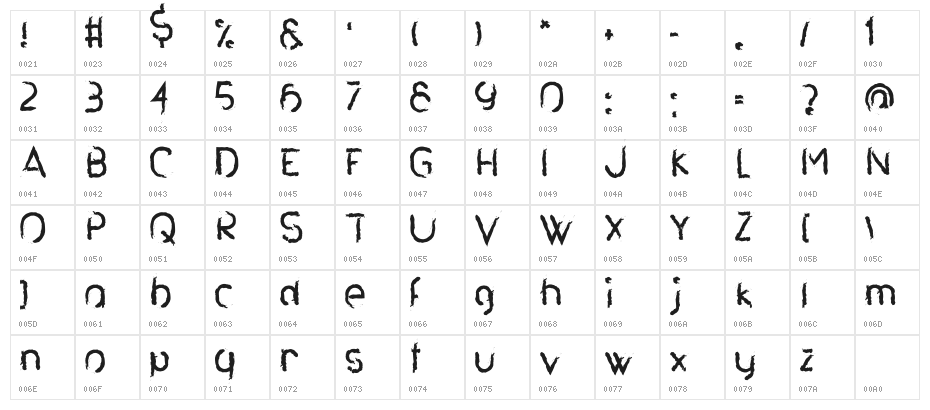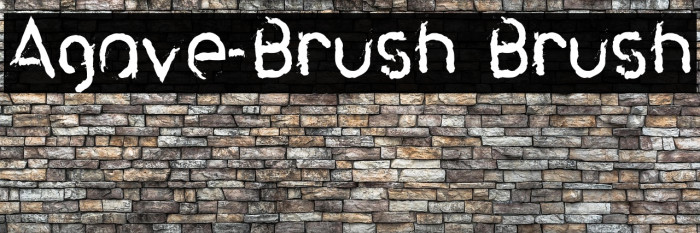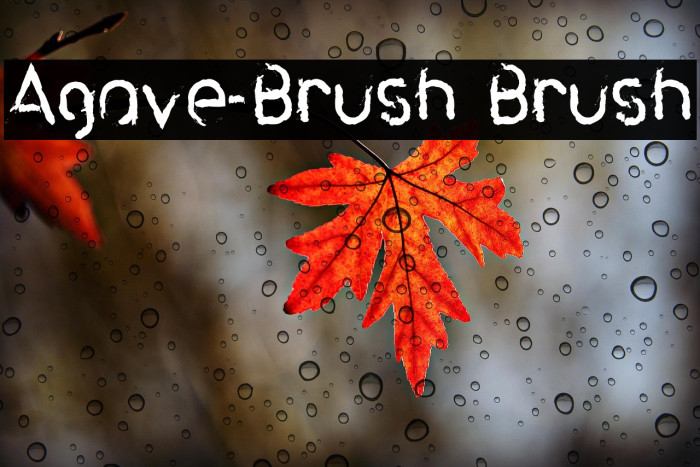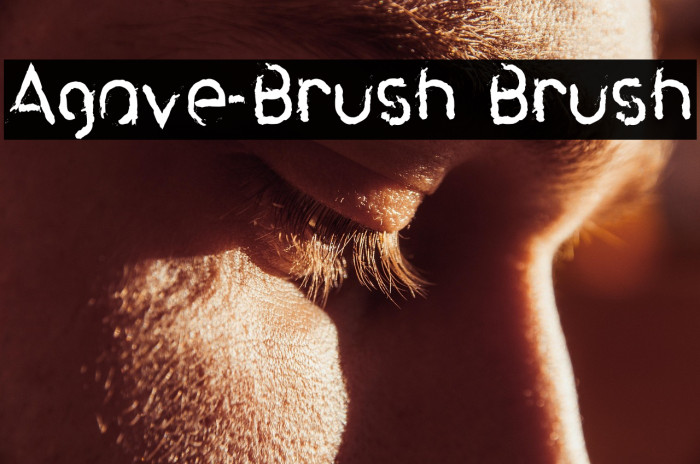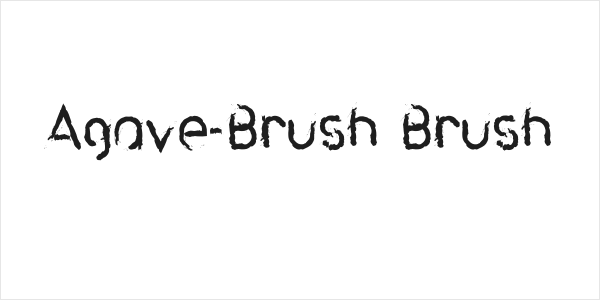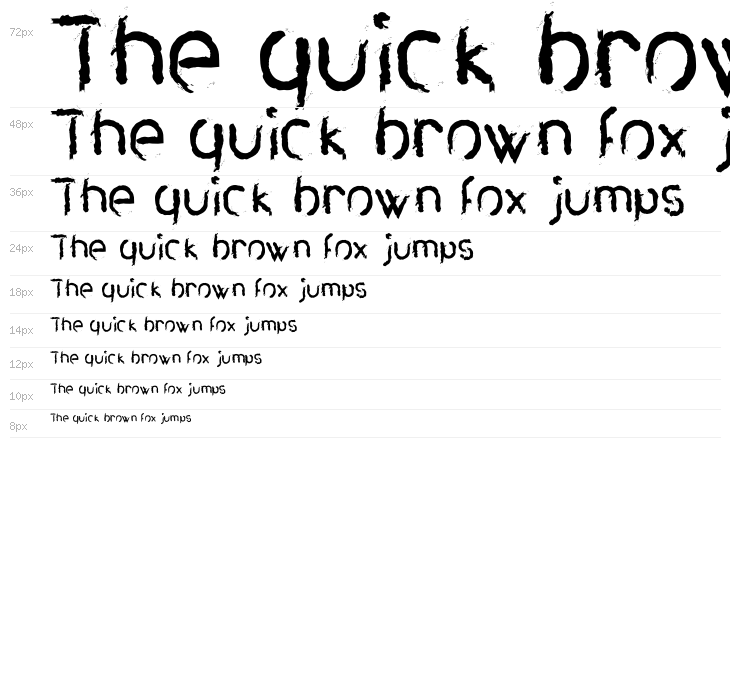
Agave-Brush Brush Font
Agave-Brush Brush Description
This font features a bold, brush-like texture that gives it a hand-painted appearance. The strokes are uneven, with a rough, organic feel, reminiscent of ink or paint applied with a brush. Each character has a unique, artistic flair, with varying thicknesses that add to its dynamic and expressive style. The uppercase and lowercase letters maintain a consistent aesthetic, while the numerals and special characters complement the overall design. This font is ideal for projects that require a creative and informal touch, such as artistic posters, invitations, or branding materials that aim to convey a sense of individuality and creativity.
| Overall Style | Artistic, Creative |
| Use Case | Headlines, Logos, Artistic projects |
| Proposed Projects | Ideal for artistic posters, creative invitations, and unique branding materials. |